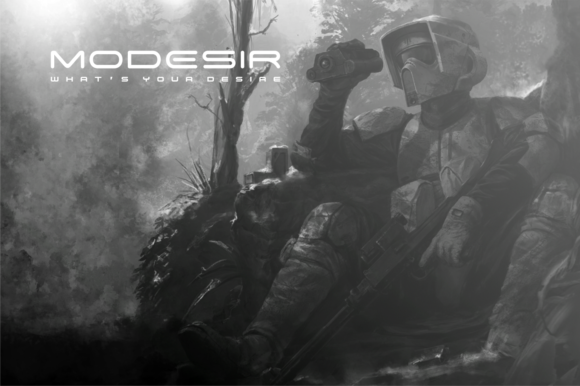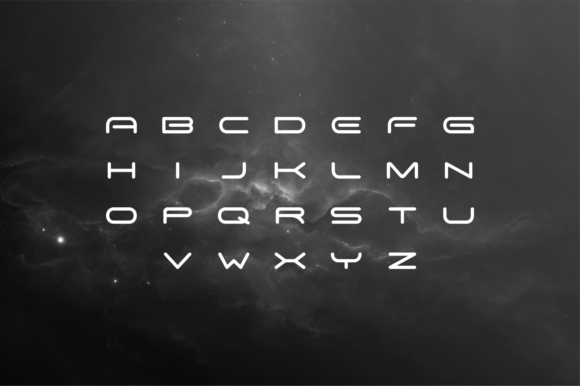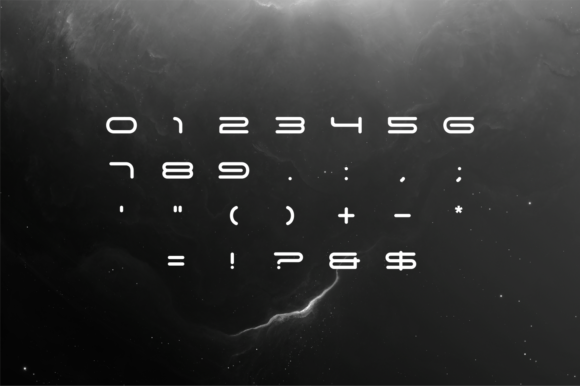
Bodies Font: Elevate Your Designs with a Minimal and Modern Display Font
In the world of typography, a font can make or break a design. It’s the foundation upon which the entire visual identity of a project is built. For designers and crafters, finding the perfect font can be a daunting task. However, if you’re looking for a font that embodies simplicity, elegance, and versatility, look no further than Bodies Font. In this article, we’ll explore the features and benefits of Bodies Font, and how it can elevate your designs to new heights.
What is Bodies Font?
Bodies Font is a minimal and modern display font designed to make a statement. Its clean lines, simple shapes, and elegant curves make it perfect for a wide range of projects, from branding and advertising to packaging and digital media. Whether you’re a professional designer or a crafty DIY enthusiast, Bodies Font is an excellent addition to your typography arsenal.
Key Features of Bodies Font
- Minimalist Design: Bodies Font boasts a minimalist design that exudes simplicity and sophistication. Its clean lines and shapes make it easy to read and understand, even at small sizes.
- Modern Aesthetic: The font’s modern aesthetic makes it perfect for contemporary designs that require a fresh and stylish look.
- Versatility: Bodies Font can be used in a wide range of projects, from digital media to print materials, making it a versatile addition to your font library.
- Elegant Curves: The font’s elegant curves add a touch of sophistication and elegance to any design.
Benefits of Using Bodies Font
So, why should you choose Bodies Font for your next project? Here are just a few benefits of using this amazing font:
- Stand Out: Bodies Font is designed to make your designs stand out from the crowd. Its unique and modern aesthetic ensures that your project will grab attention and leave a lasting impression.
- Easy to Read: The font’s clean lines and simple shapes make it easy to read, even at small sizes.
- Flexibility: Bodies Font can be used in a wide range of projects, from digital media to print materials, making it a flexible addition to your font library.
- Time-Saving: With Bodies Font, you can save time and effort in your design process. Its versatility and ease of use make it easy to incorporate into your project, without requiring extensive design expertise.
How to Use Bodies Font in Your Designs
Using Bodies Font in your designs is easy. Here are a few tips to get you started:
- Pair it with Other Fonts: Bodies Font can be paired with other fonts to create a unique and visually appealing typography scheme.
- Experiment with Sizes and Colors: Don’t be afraid to experiment with different sizes and colors to find the perfect combination for your design.
- Use it in Headings and Titles: Bodies Font is perfect for headings and titles, where its modern aesthetic and elegant curves can make a big impact.
In conclusion, Bodies Font is a minimal and modern display font that can elevate your designs to new heights. Its versatility, elegance, and simplicity make it perfect for a wide range of projects, from branding and advertising to packaging and digital media. Whether you’re a professional designer or a crafty DIY enthusiast, Bodies Font is an excellent addition to your typography arsenal. So why wait? Add Bodies Font to your creative ideas and notice how it makes them stand out!